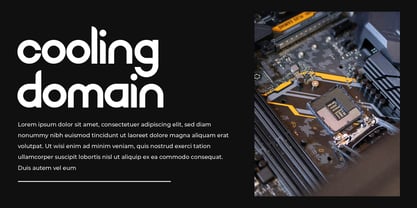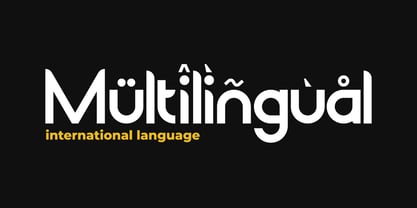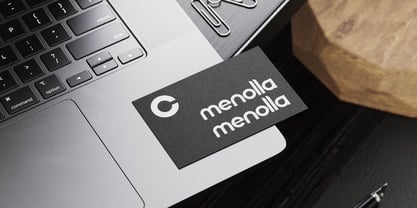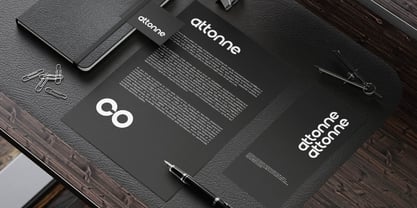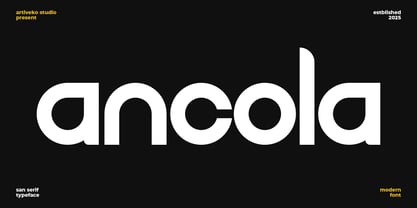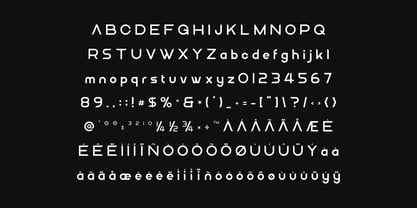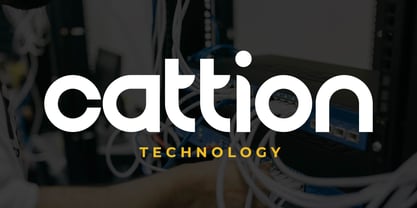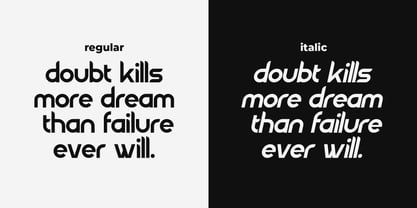
Ancola
by Artiveko
The Ancola Font Family was designed by Iwan Alwan and published by Artiveko. Ancola contains 2 styles and family package options. More about this family
Ancola is a modern sans serif font with clean lines and a sleek, professional feel. Designed for clarity and versatility, it fits perfectly in branding, editorial design, websites, and tech-inspired projects. With multilingual support, ligatures, and alternates, Ancola offers a balanced blend of minimalism and modernity—ideal for impactful and contemporary visual communication.
Designers: Iwan Alwan
Foundry: Artiveko
Artiveko is a font design team based in Indonesia, comprised of several talented font designers who commenced their careers in the font design industry in 2020. With a dedicated focus on crafting fonts, the team members bring their collective expertise and passion to every project they undertake. Situated in Indonesia, Artiveko draws inspiration from the vibrant cultural landscape of the region, infusing their creations with unique flavors and aesthetics.The team's font collection encompasses a diverse range of styles, including serif, sans serif, handwritten, and script typefaces. Each typeface is meticulously crafted to meet the demands of modern design while offering versatility and functionality across various applications. Whether it's the classic elegance of serif fonts, the contemporary appeal of sans serif designs, the personal touch of handwritten scripts, or the expressive flourishes of script fonts, Artiveko ensures that every font reflects their dedication to quality and innovation.Artiveko's fonts have garnered recognition and acclaim, with their works being featured on prominent social media platforms like Creative Market. Through these platforms, the team has been able to connect with a global audience of designers and typographers, further amplifying their reach and influence in the industry. Their fonts are celebrated for their impeccable craftsmanship, attention to detail, and ability to elevate design projects with style and sophistication.As Artiveko continues to evolve and expand its font collection, the team remains committed to pushing the boundaries of typography and setting new standards of excellence. With a relentless focus on creativity, innovation, and collaboration, Artiveko strives to inspire and empower designers around the world with their distinctive and versatile font designs.